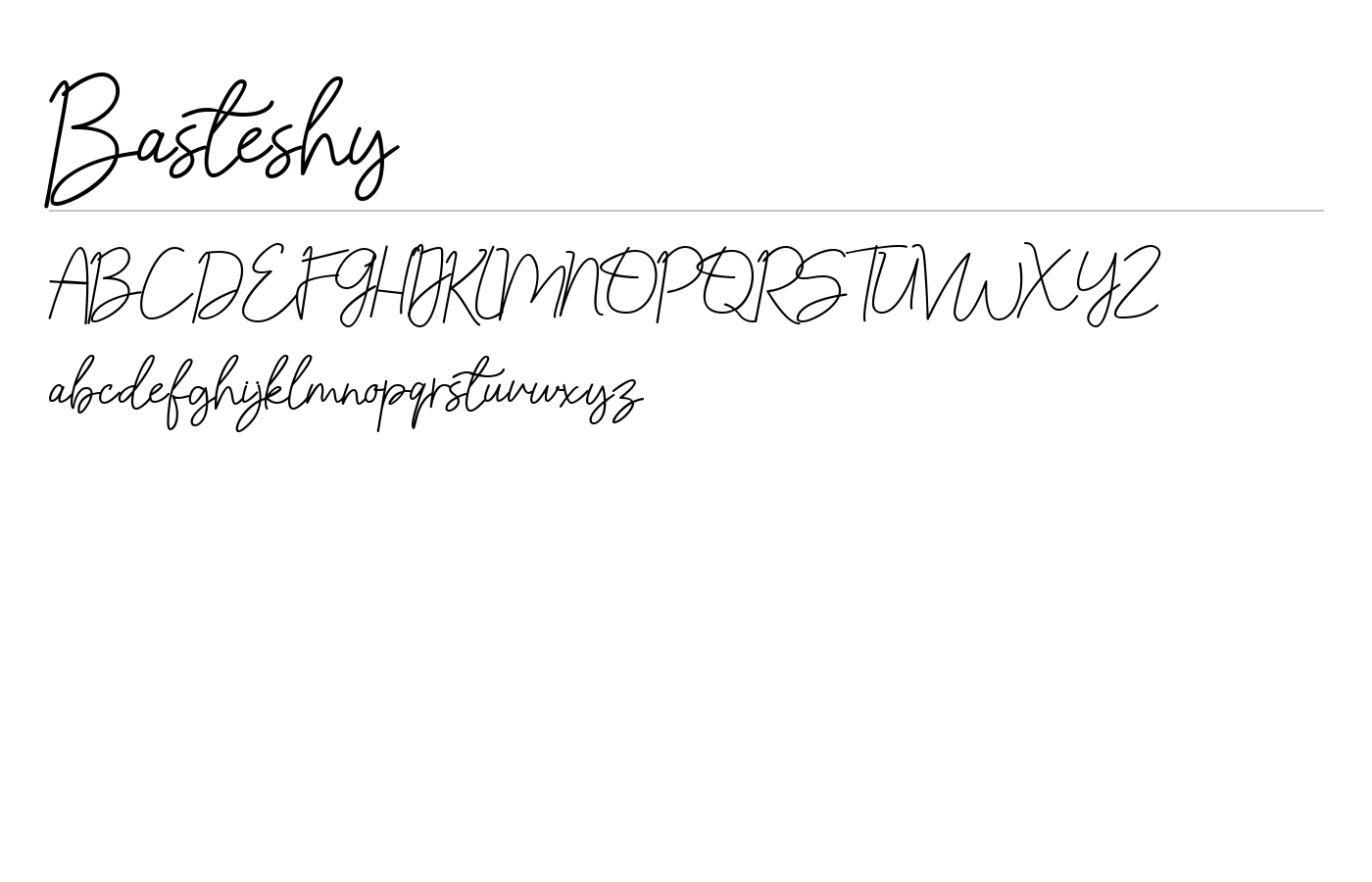
Basteshy is a delicate, handwritten script font with a casual, airy feel created by its thin, flowing strokes and slightly irregular letterforms. Its light weight and natural, personal style make it ideal for invitations, branding, and creative projects that want to convey elegance with a warm, approachable touch. This font works well in contexts where a modern handwritten look is desired, adding charm and personality without overwhelming the design.
Basteshy Font
About Basteshy Font